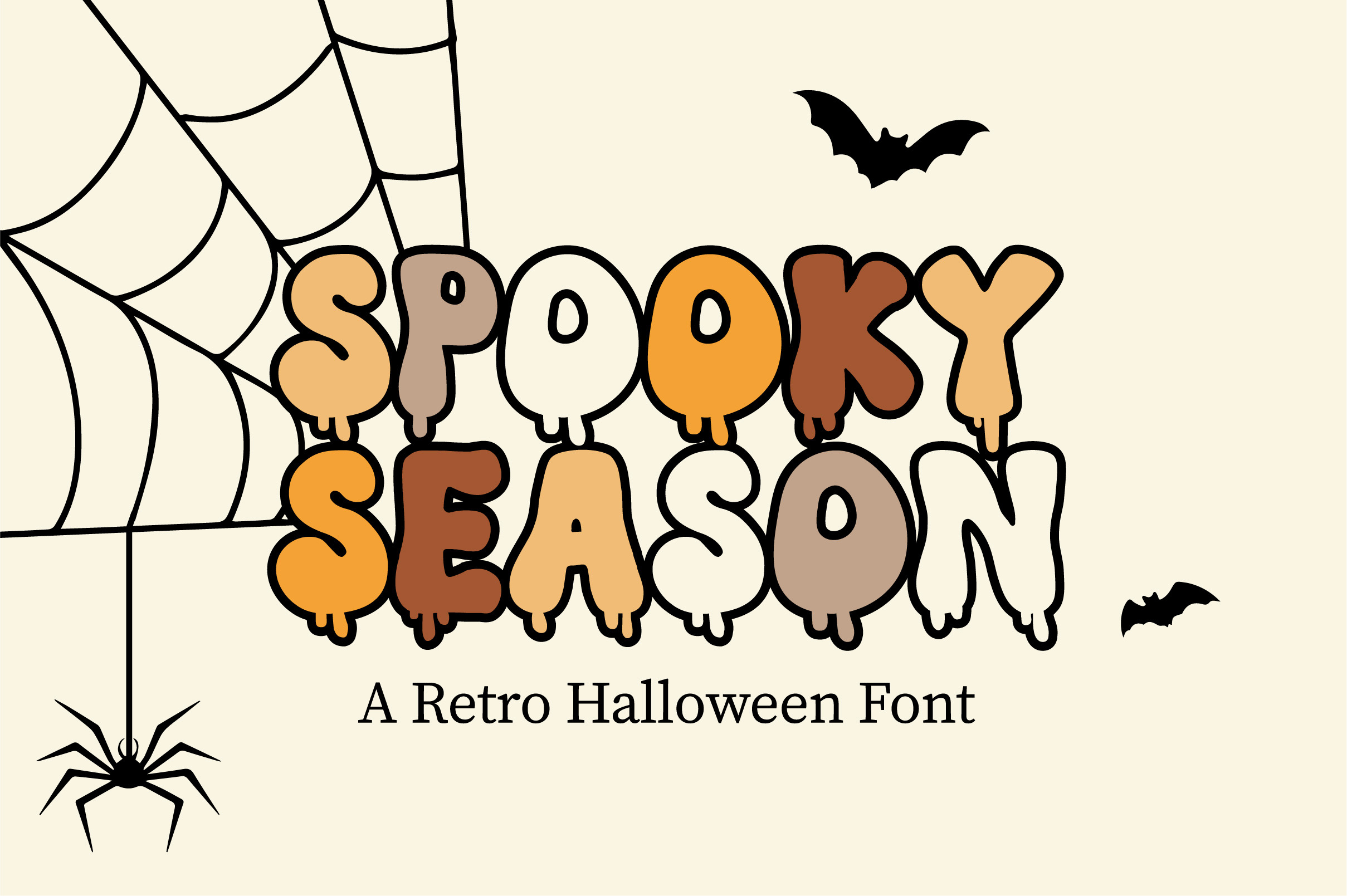
Spooky Season - Retro Font
Spooky Season is a spooky display font. Its natural and unique style makes it incredibly fitting For Halloween Designs. It's font structure and style make your fun fantasy Halloween designs come true.. This font is perfect for a design that requires a playful and fun accent. The font is ready for any of your projects. Thank You